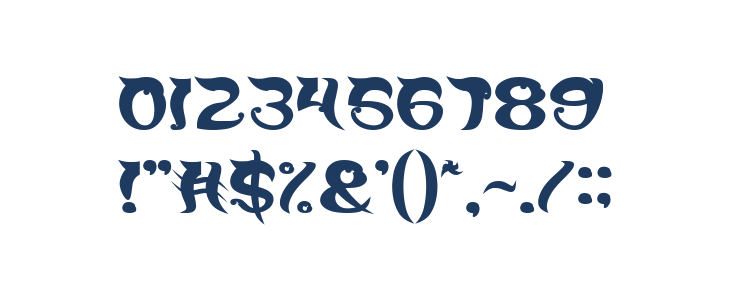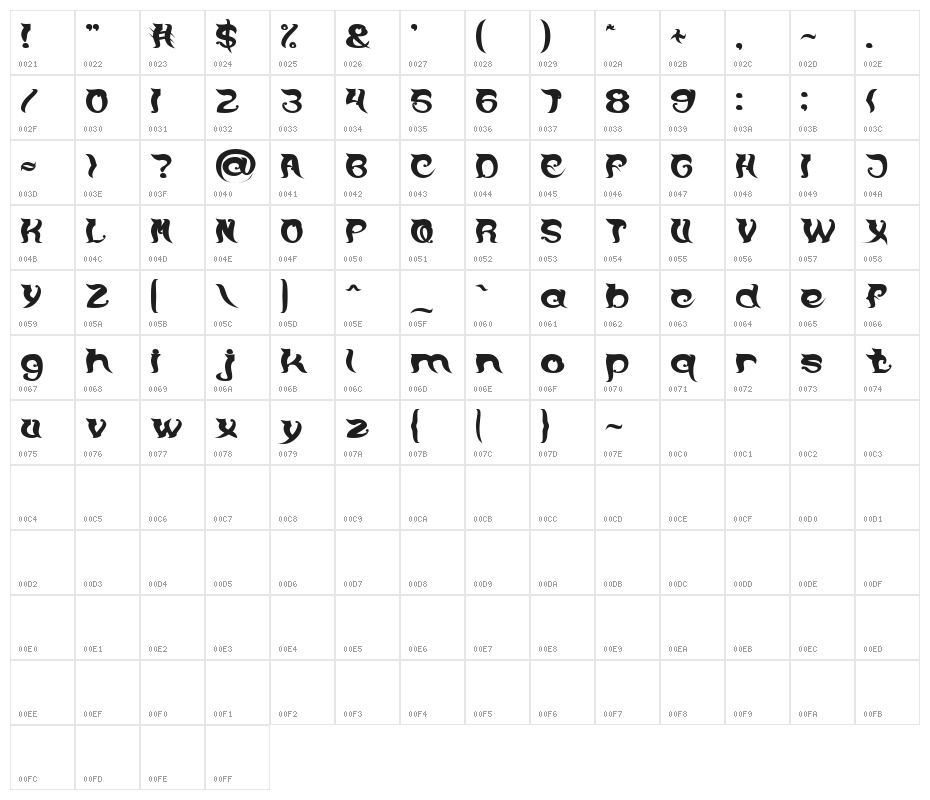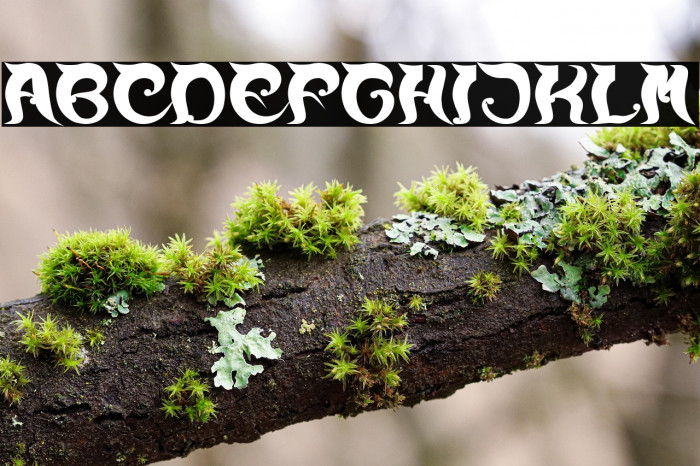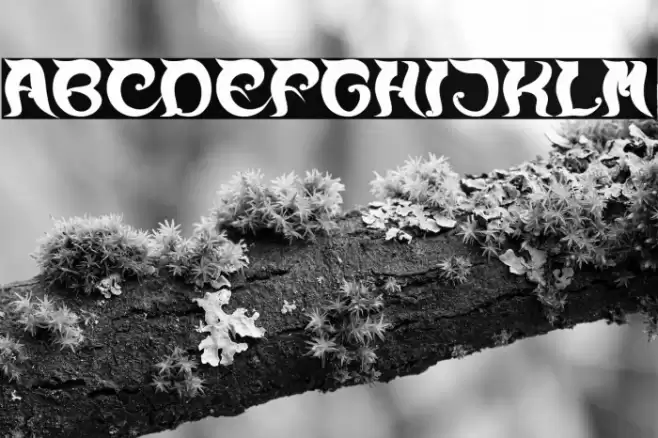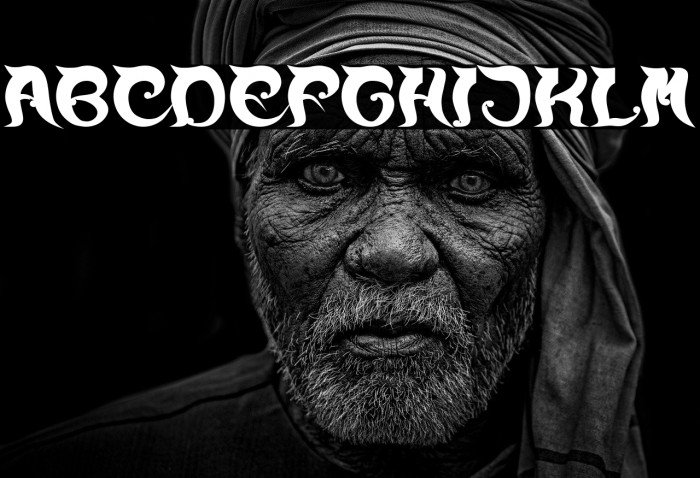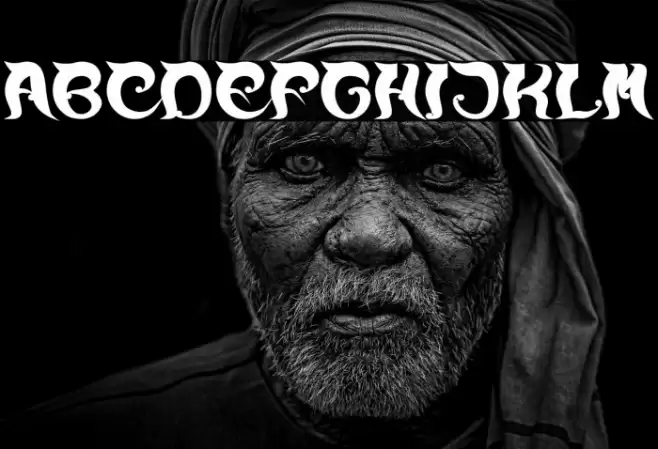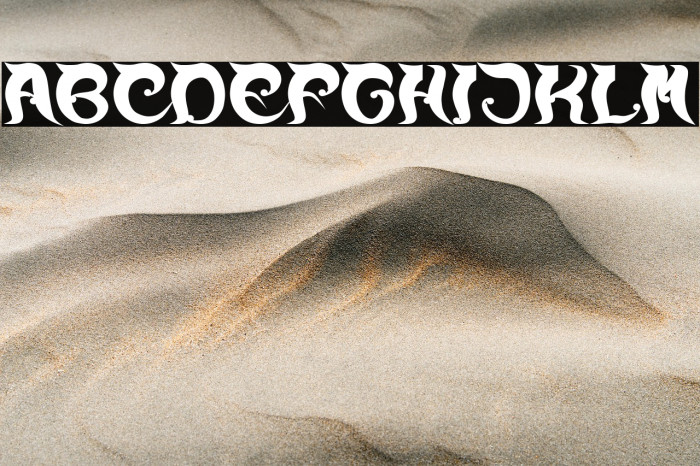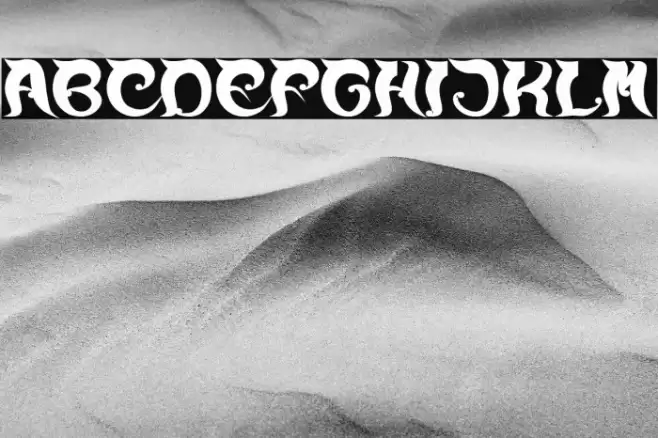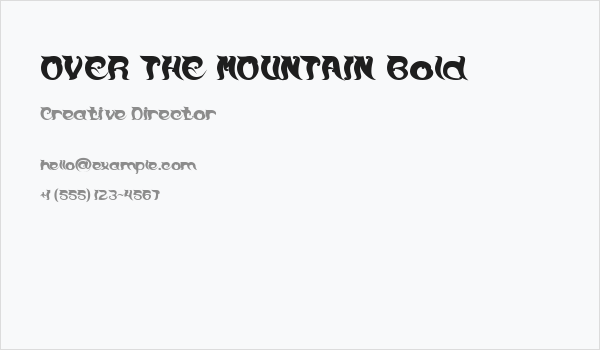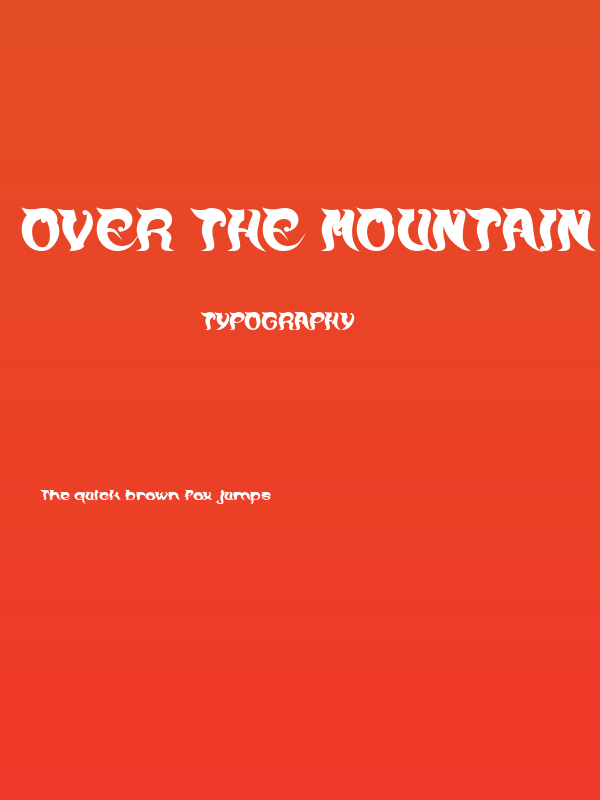
OVER THE MOUNTAIN Bold Font
OVER THE MOUNTAIN Bold Description
This font features a bold and decorative style with unique, swirling elements that give it a whimsical and artistic appearance. The characters are highly stylized, with exaggerated curves and flourishes that create a sense of movement and energy. The uppercase and lowercase letters maintain a consistent design theme, while the numbers and special characters complement the overall aesthetic. This font's distinctiveness makes it ideal for eye-catching designs where a strong visual impact is desired.
| Name | OVER THE MOUNTAIN Bold |
| Font Family | OVER THE MOUNTAIN |
| Style | Bold |
| Proposed Projects | Ideal for posters, album covers, branding, and creative projects requiring a bold statement. |